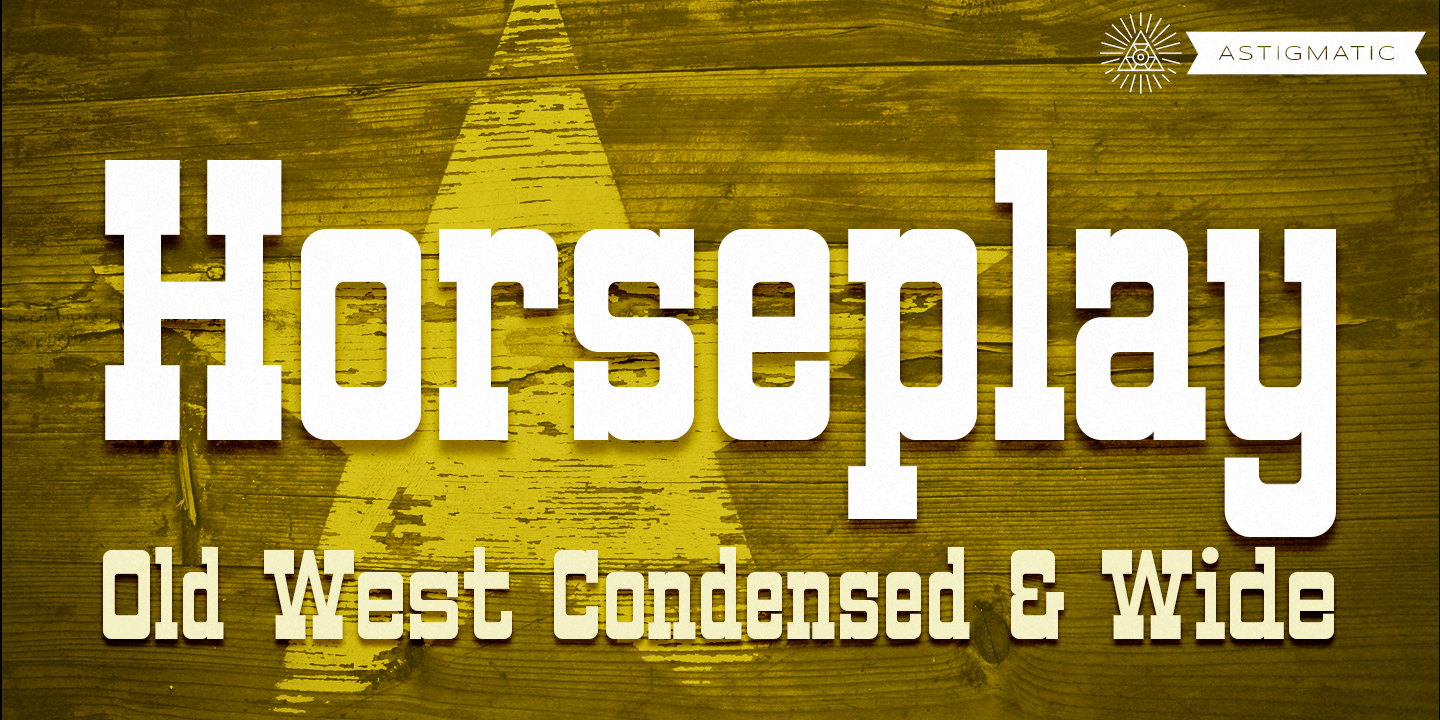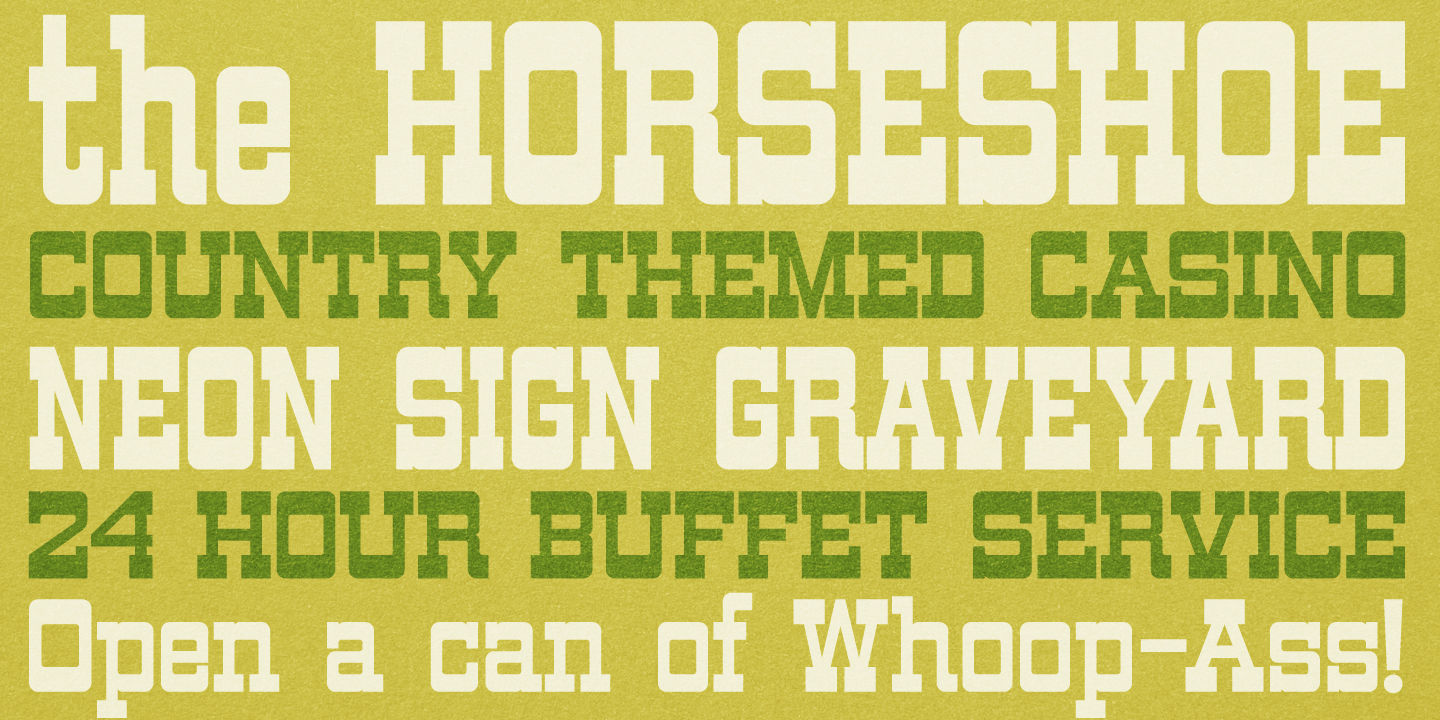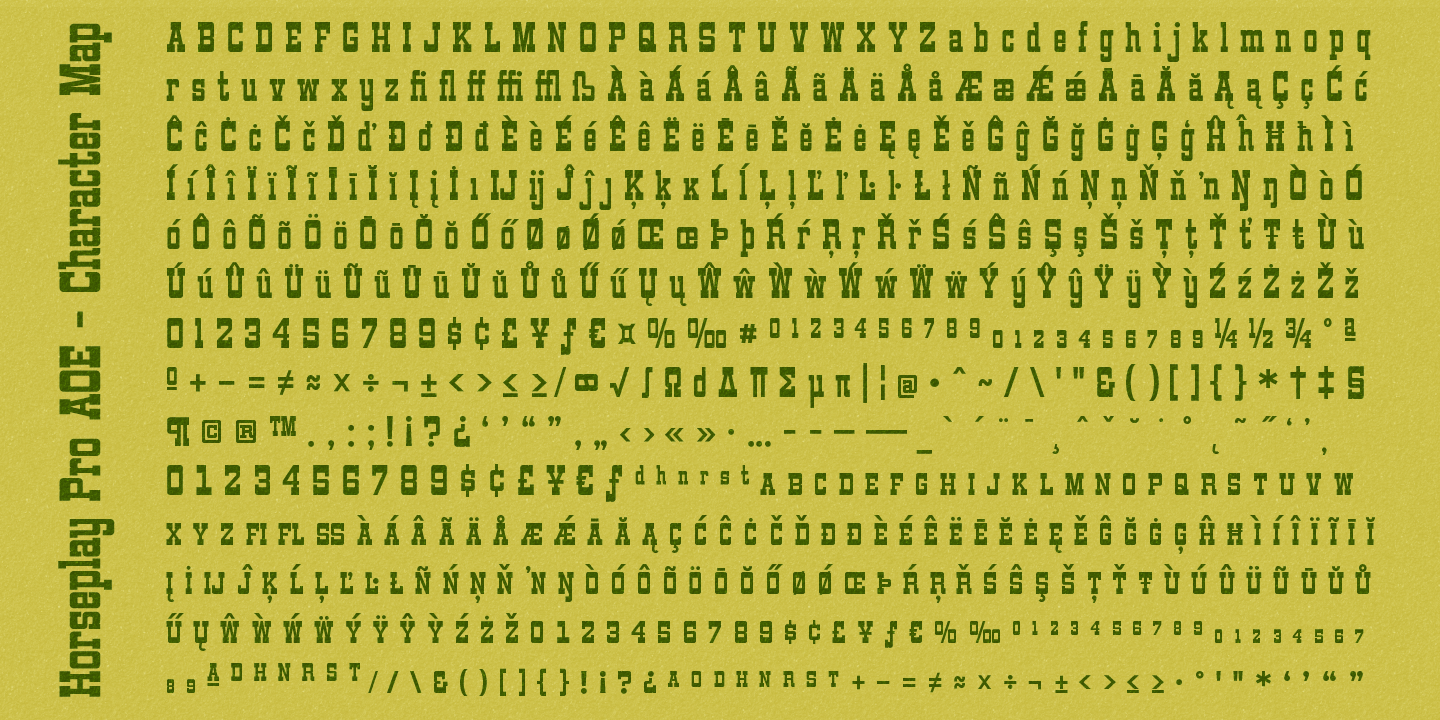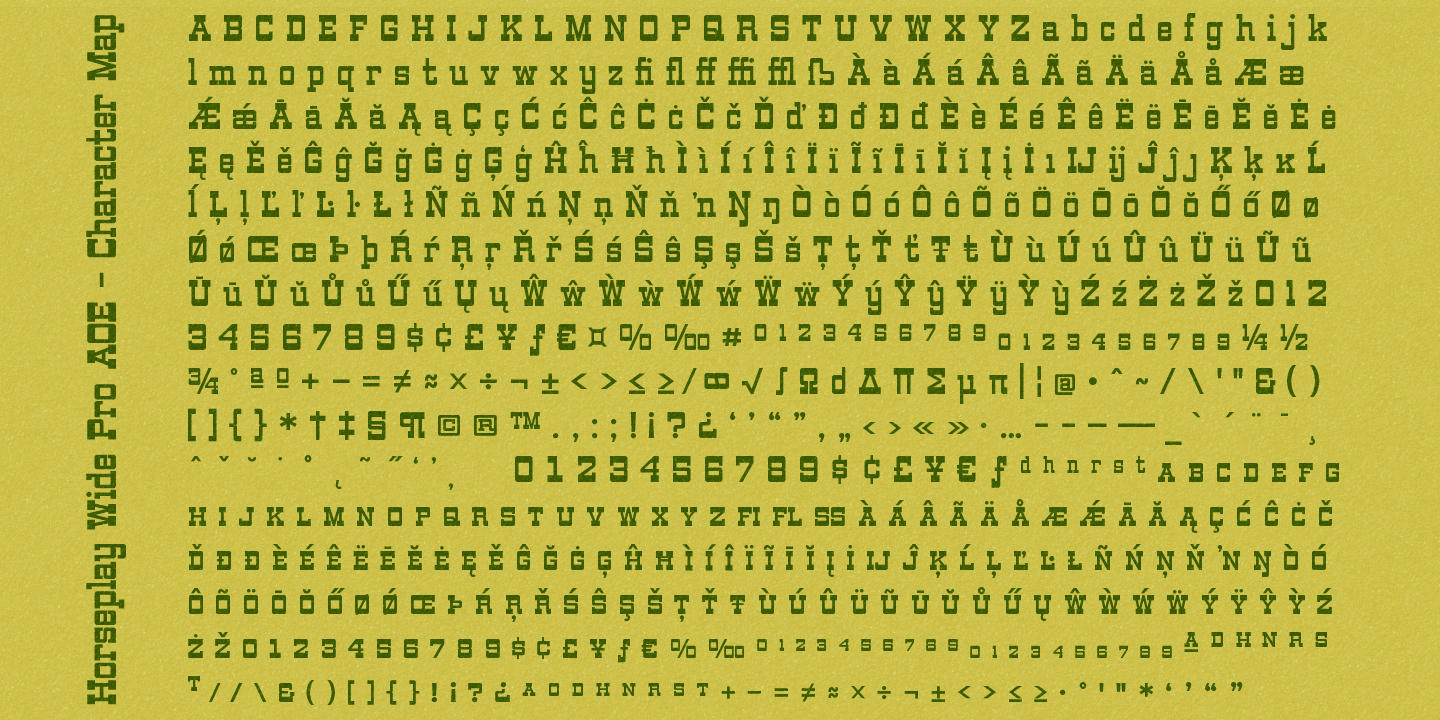
Horseplay Pro AOE
Font Family by Astigmatic One Eye
Horseplay AOE captures the bold spirit of classic Las Vegas casino signage. The design draws inspiration from vintage lettering once used on signage at Binion’s Horseshoe Hotel & Casino in downtown Las Vegas, where both condensed and wide lettering styles appeared in the glowing neon and bulb signage of the era. While the original signs now live on in the city’s Neon Sign Graveyard, Horseplay keeps their distinctive personality alive in digital form. The Horseplay Pro family expands this vintage signage concept with OpenType features including small caps, tabular and proportional figures, unlimited fractions, small-cap figures, and extended language support. Available in both standard and wide styles, Horseplay is perfect for western branding, retro casino graphics, signage design, and bold vintage Americana display typography.